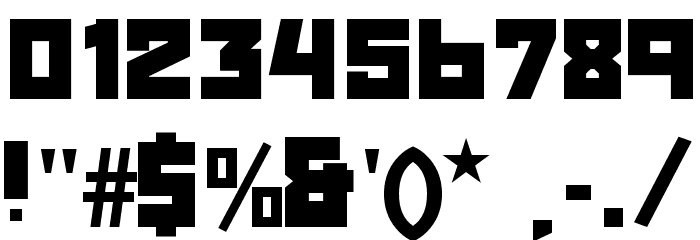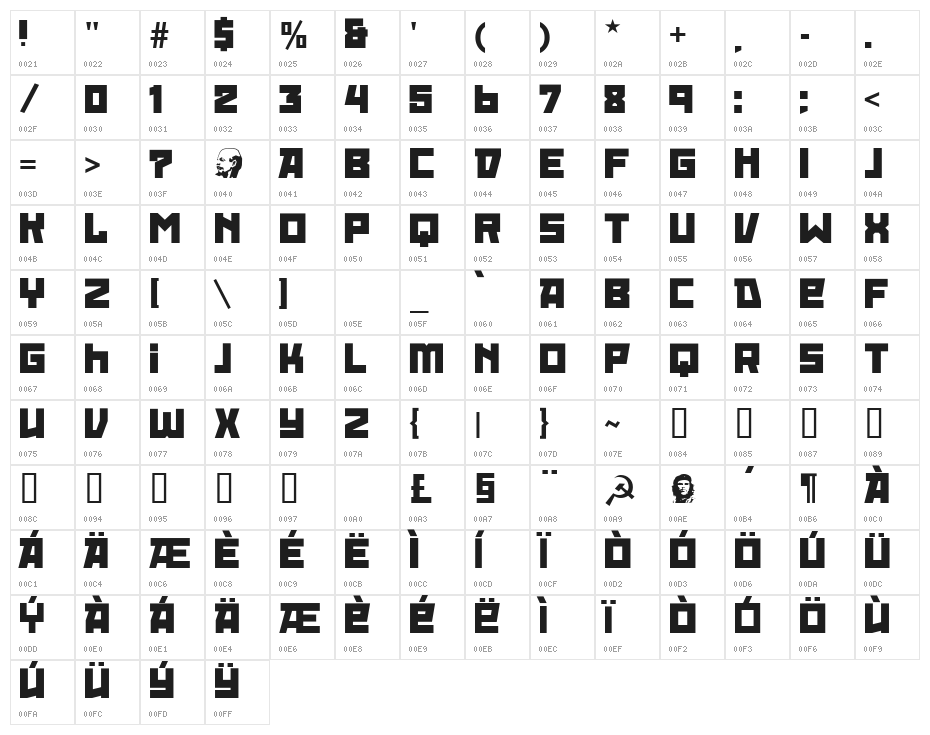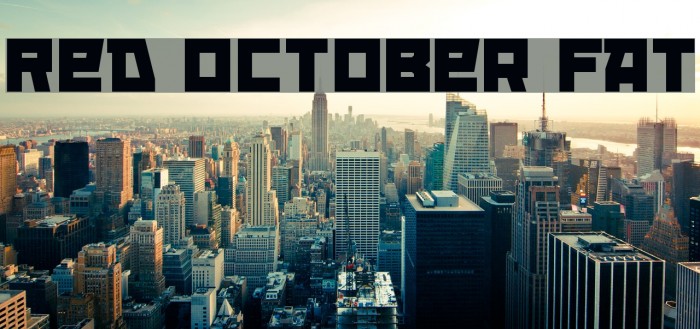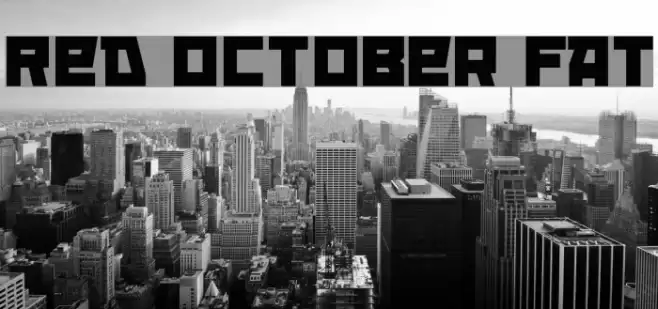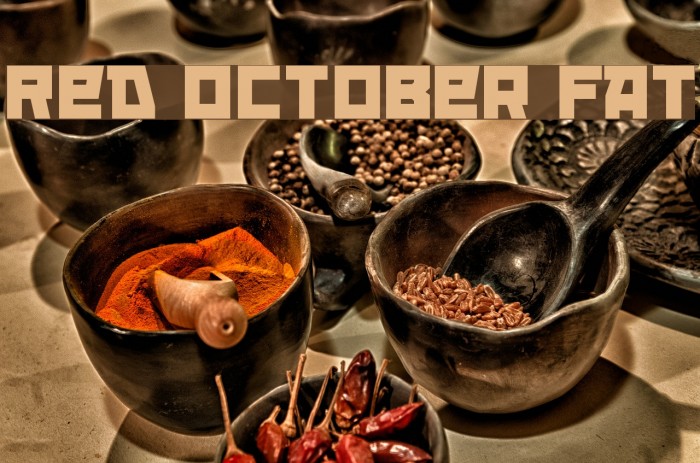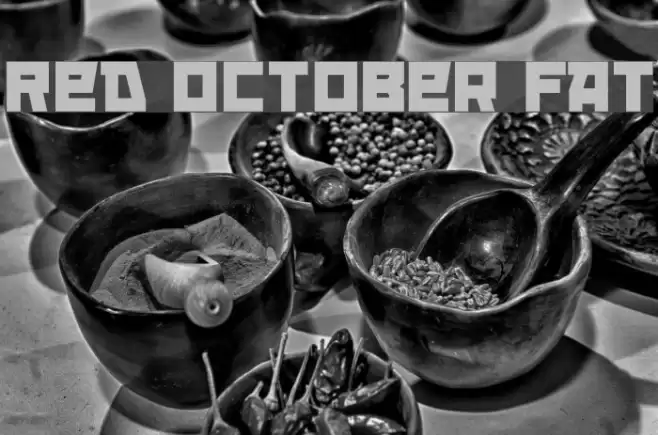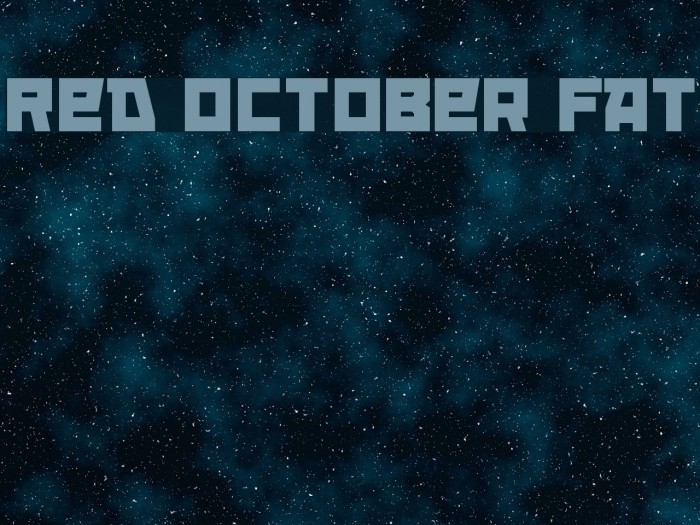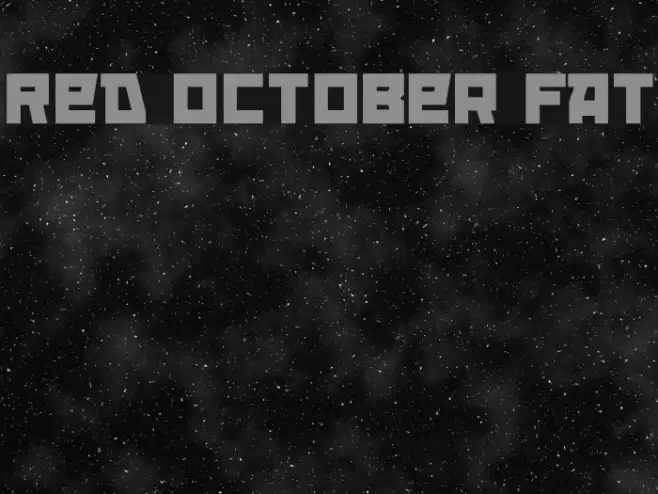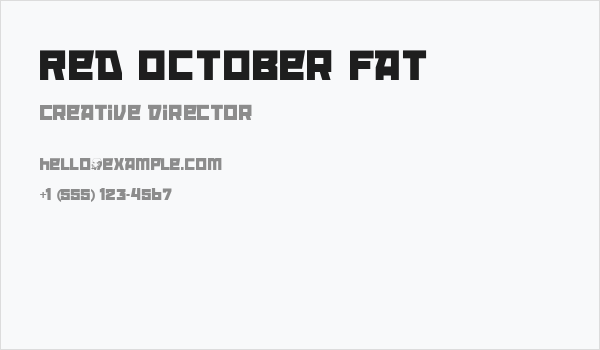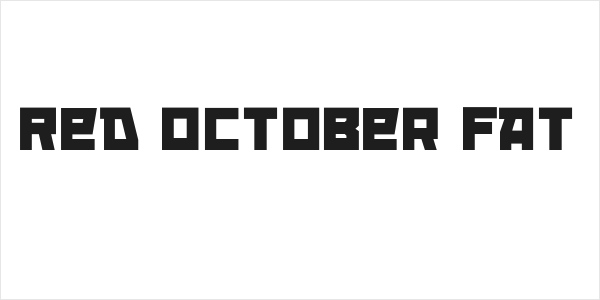
Red October Fat Font
Red October Fat Description
This font features bold, geometric letterforms with a strong, impactful presence. The characters are constructed with sharp angles and straight lines, giving them a modern and industrial feel. The uppercase and lowercase letters maintain a consistent weight, contributing to a uniform appearance. The numerals and special characters are designed to match the boldness of the alphabet, ensuring a cohesive look across all glyphs. This font's distinct style makes it suitable for attention-grabbing designs.
| Proposed Projects | Ideal for posters, headlines, branding, and any design requiring a strong visual impact. |